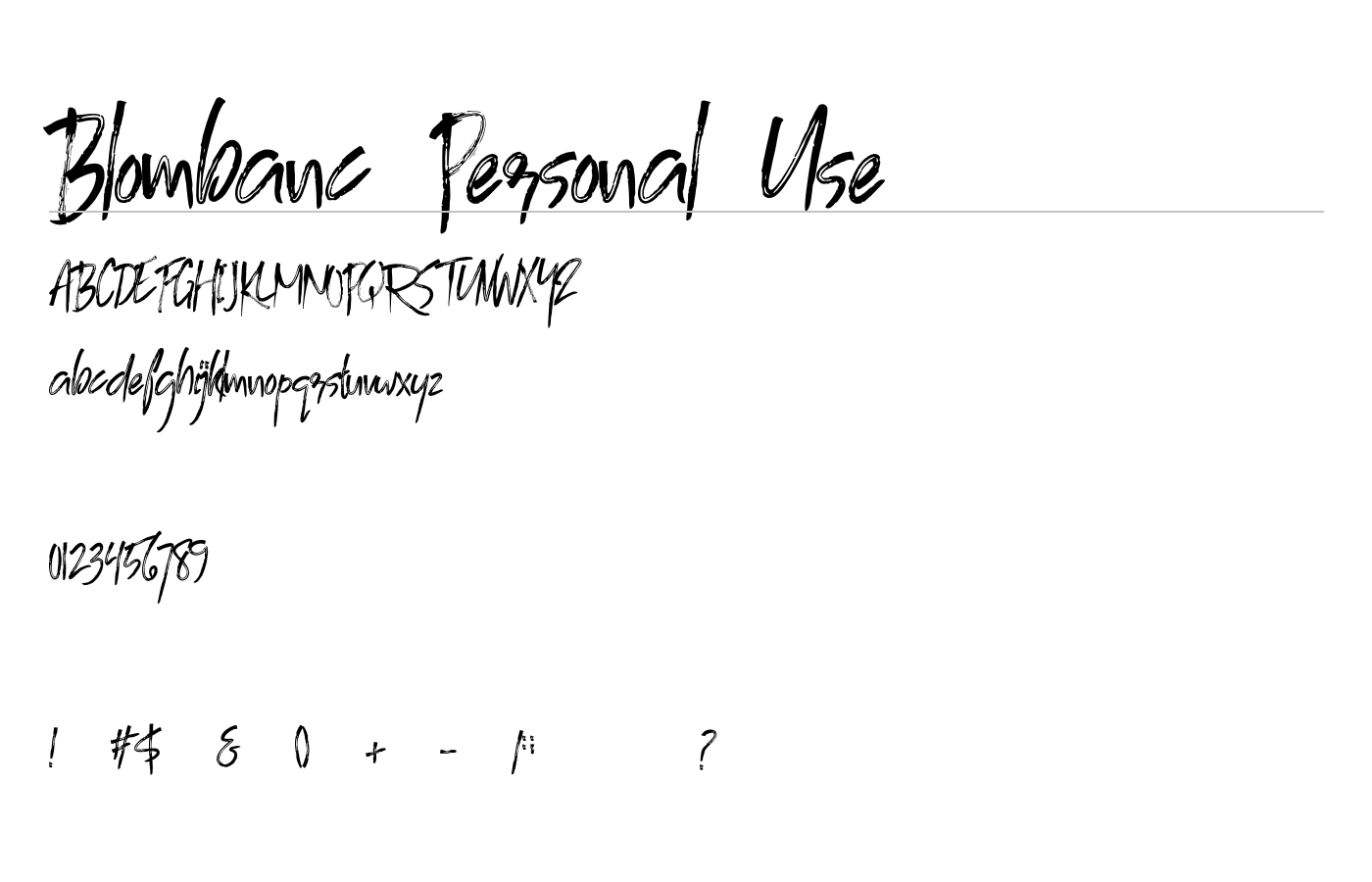
Blombanc Personal Use is a distinctive handwritten script font with a raw, expressive style that feels both energetic and artistic. Its tall, narrow letterforms and rough, textured strokes give it a spontaneous, casual personality perfect for creative projects, personal branding, and edgy headlines. This font works best for designs seeking a bold, unconventional look with a natural, hand-crafted touch.
Blombanc Personal Use Font
About Blombanc Personal Use Font
| Font family | Blombanc Personal Use Font |
| Designer | Vaca Tama |